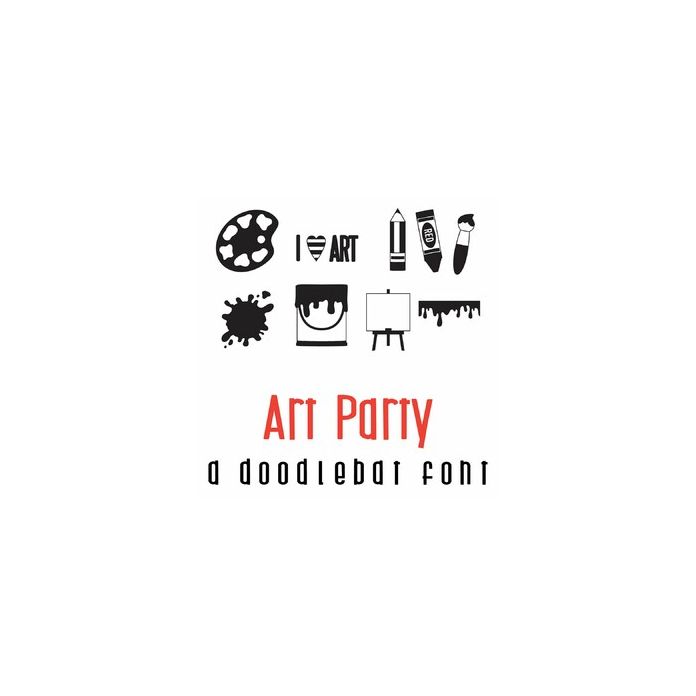
Art Party Doodlebat Font
This fun full-color doodlebat font features 26 art themed images, perfect for cards, crafts, gifts, scrapbook pages, planner stickers, and more!